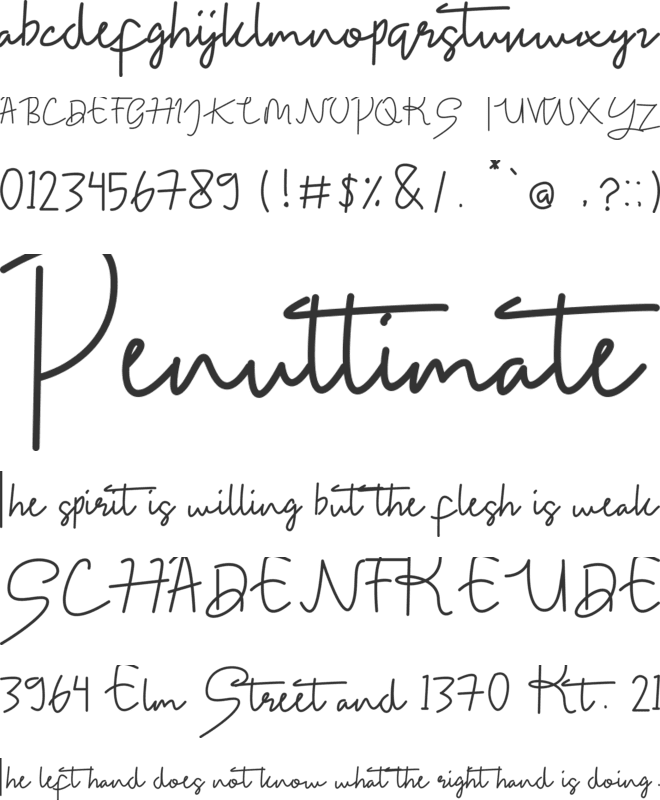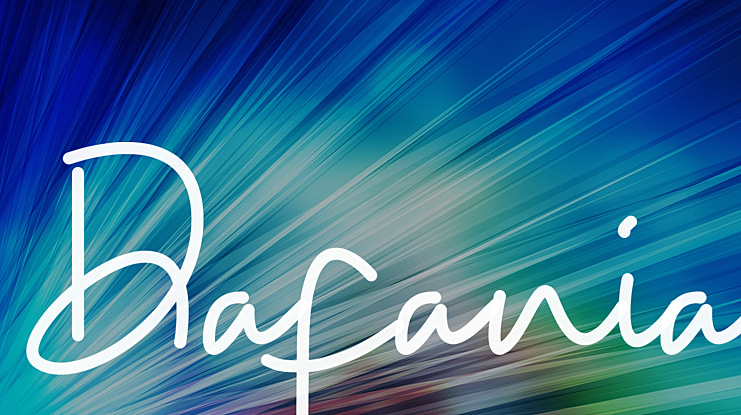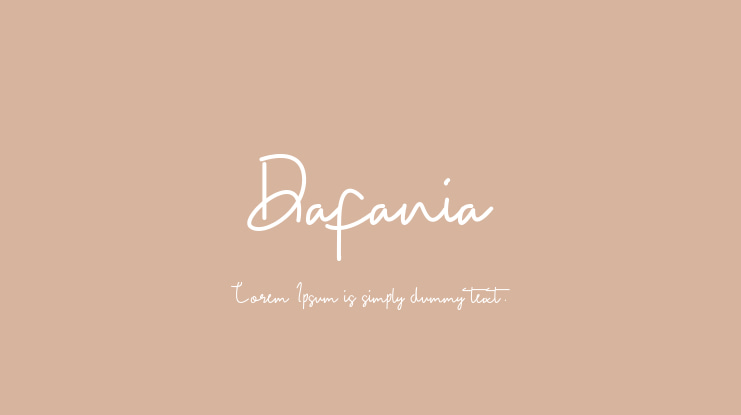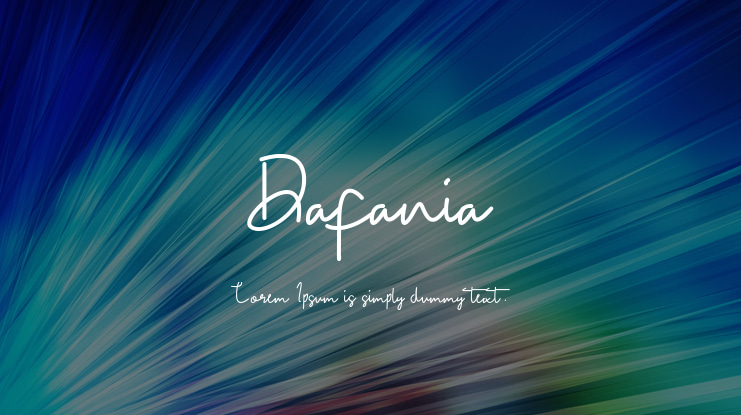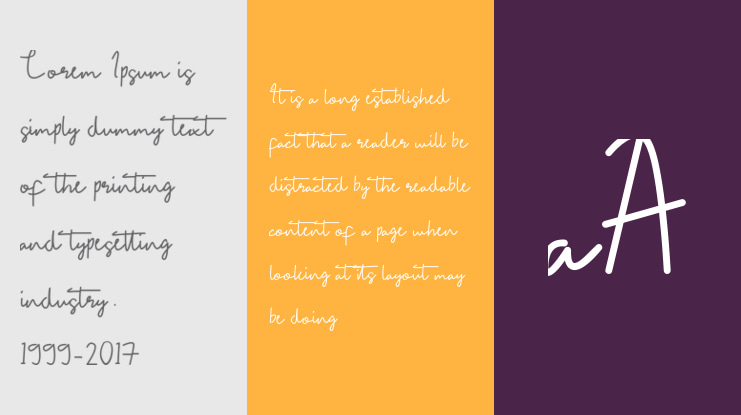
Dafania Font
Hello everyone we have a new signature font with the name Dafania signature. This font is very beautiful and elegant perfect for watermarks, logos, branding, promotions, photography, product packaging, wedding invitations and business cards.